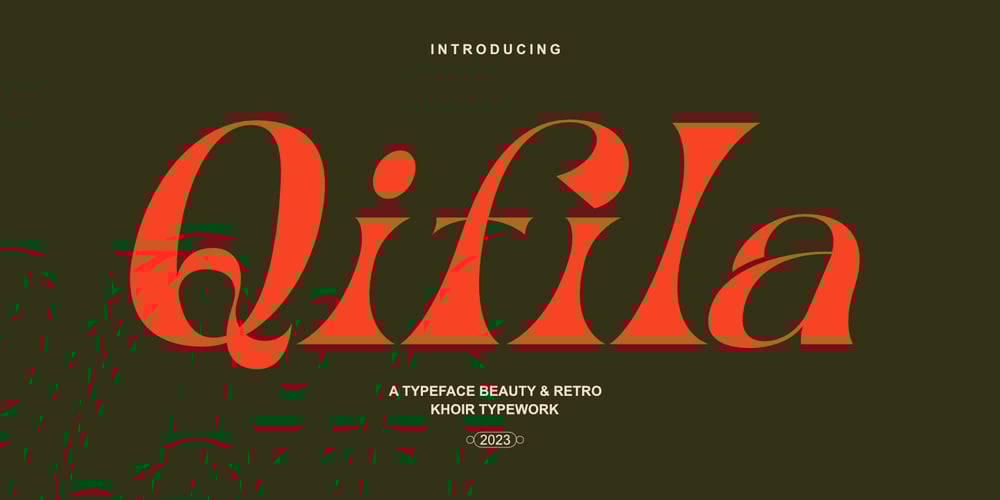
Qifila Font Family was designed by Muhammad Romzul Khoir and published by Khoir. Qifila contains 1 styles and family package options. Qifila is a serif font with a retro feel with the characteristic slopes and angles of the Victorian era, has a unique letter shape for each letter and has alternative fonts and ligatures that can make your work even more attractive.This font is perfect for your creative projects like packaging, logotype, printed quotes, cards, invitations, letterheads, clothing, magazines, covers, etc. Qifila Uppercase Lowercase 75+ Language Alternates & Ligature So what are you waiting for? immediately purchase this font, feel free to comment, or send me my PM or email at khoirtypework@gmail.com Thank you for seeingShow Less